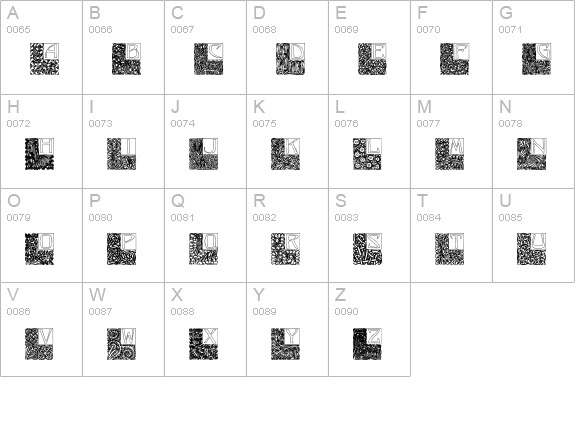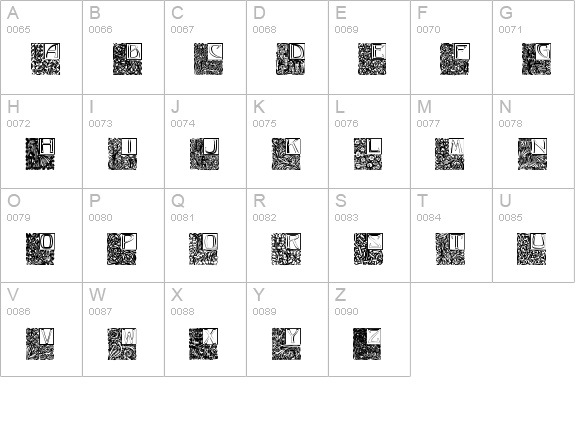
Art Nouveau Initials Font Details
The Art Nouveau Initials font is a beautifully crafted typeface that embodies the elegant and intricate design elements of the Art Nouveau movement. With its flowing lines and delicate details, this font is perfect for adding a touch of sophistication to your projects. The Art Nouveau Initials font features ornate initials that are sure to make a statement and enhance the overall aesthetic of your designs. Best of all, this font is completely free to download at FontsMarket.com, making it accessible to all designers looking to elevate their work with a touch of Art Nouveau charm. Capture the essence of a bygone era with the Art Nouveau Initials font and bring a sense of timeless beauty to your creations.